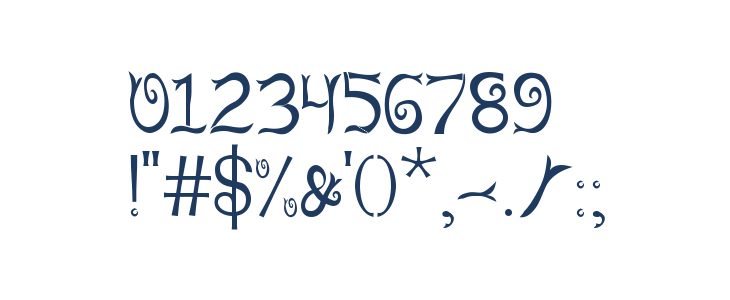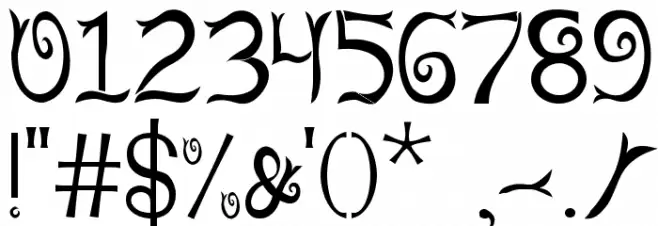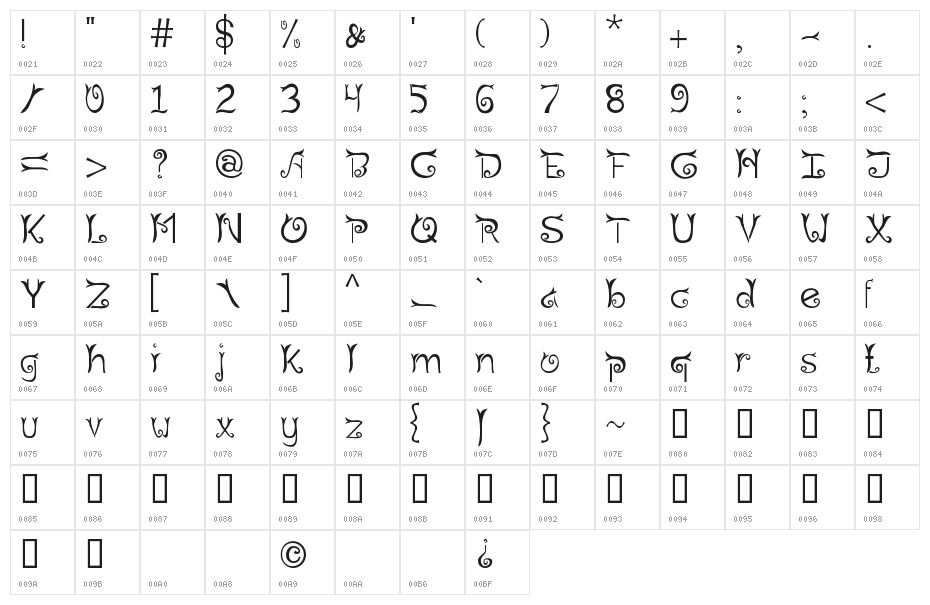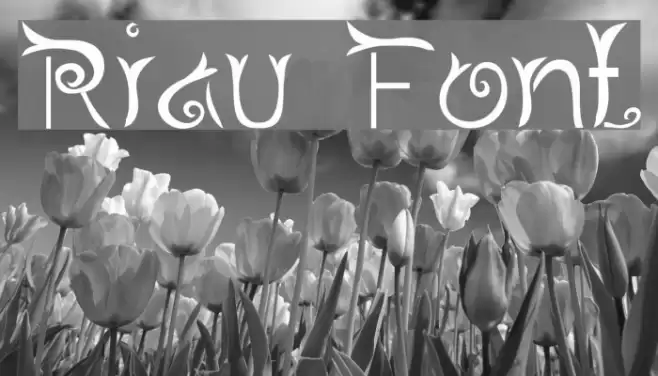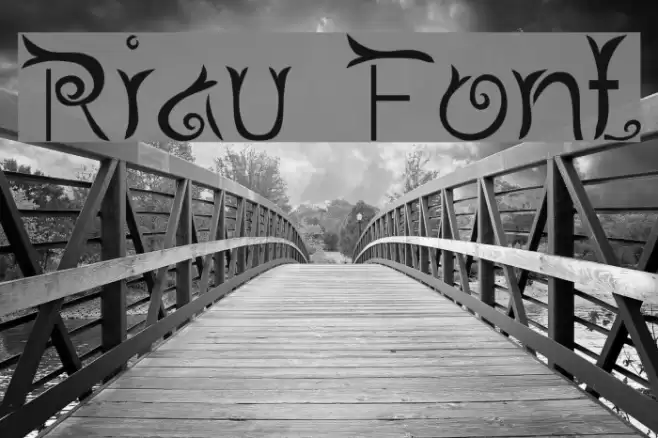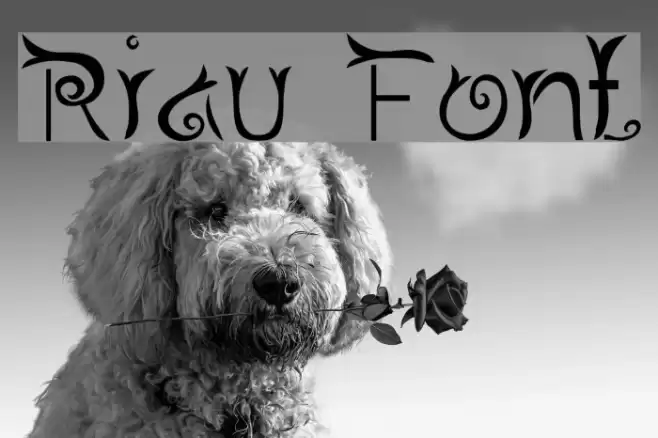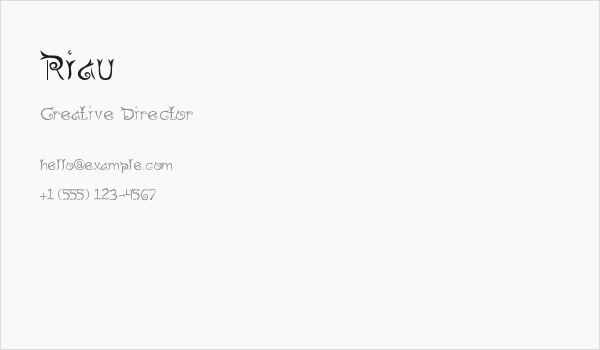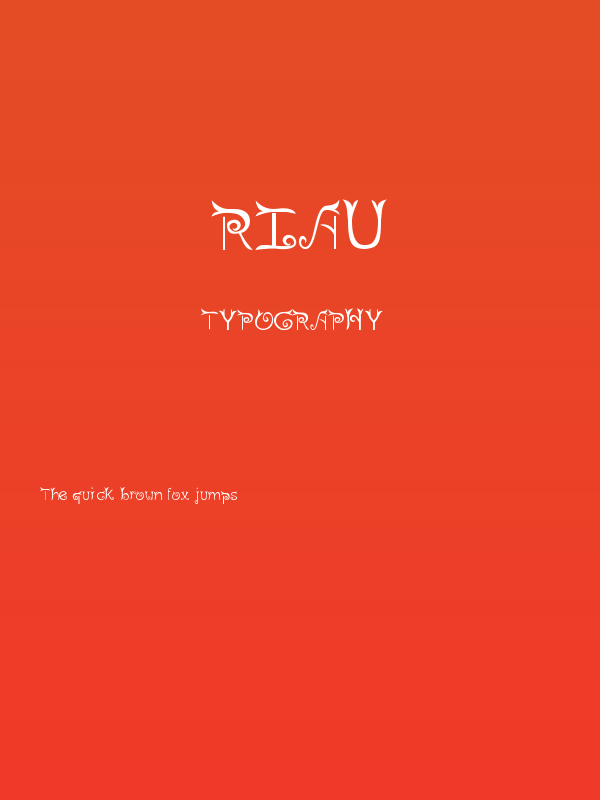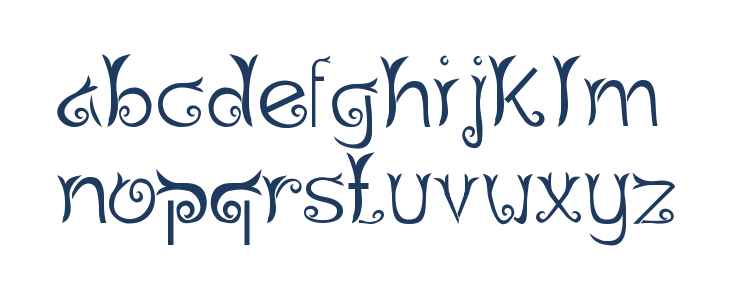
Riau Font
Riau Description
This font features a highly decorative and artistic style, characterized by its unique and intricate design elements. Each letter is adorned with swirling, ornate details that give it a whimsical and playful appearance. The characters are bold and have a medium to high contrast in stroke thickness, which enhances their visibility and impact. The font's overall style is reminiscent of a fantasy or fairy tale theme, making it ideal for creative and imaginative projects. The spacing between characters is normal, allowing for readability while maintaining its decorative appeal.
| Proposed Projects | This font is perfect for fantasy-themed designs, children's book covers, greeting cards, and creative branding projects. |